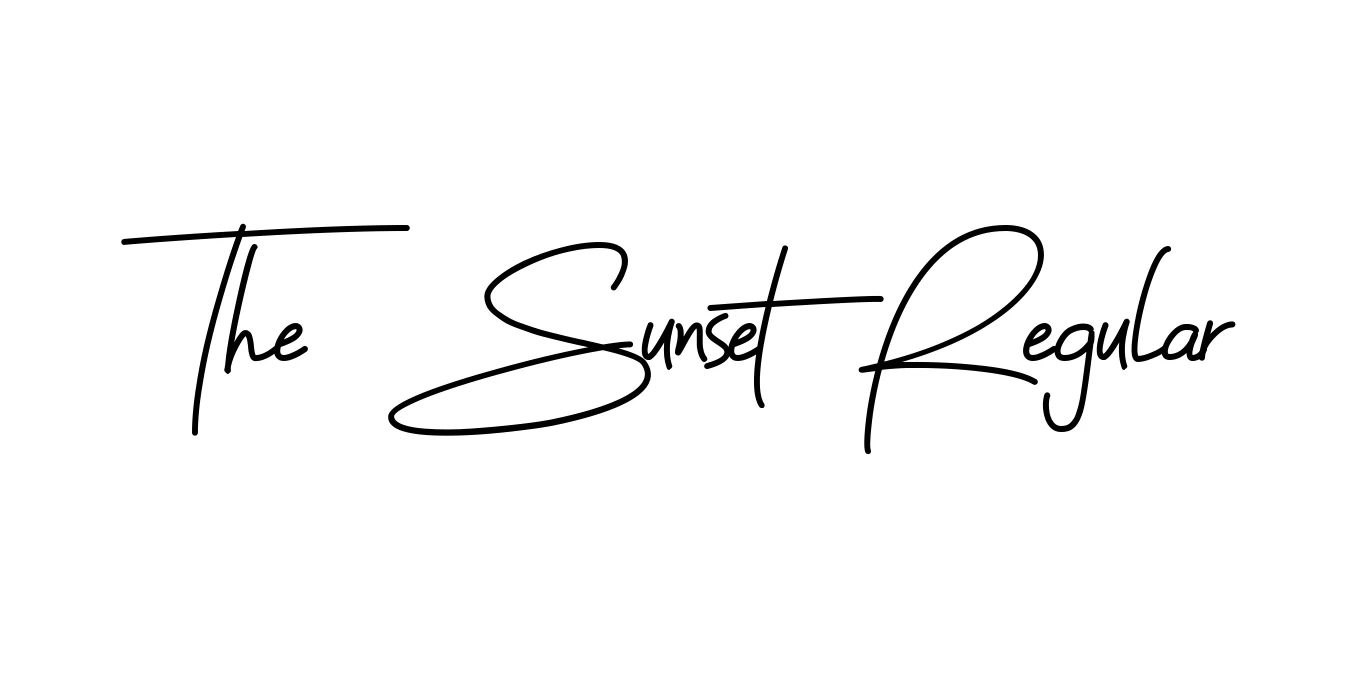
The Sunset Regular
Designed by Haksen Studio
The Sunset Regular is a beautifully crafted handwritten script font that embodies a sense of elegance and effortless style. Designed by Haksen Studio, this typeface features smooth, flowing strokes and natural connections that replicate the look of genuine hand-drawn lettering. Its sophisticated yet approachable aesthetic makes it a standout choice for designers looking to add a personal, human touch to their digital and print projects.
The font is highly versatile, offering a balanced weight that maintains readability across various sizes. The Sunset Regular is particularly well-suited for high-end branding, lifestyle photography overlays, and modern editorial layouts. Its organic curves and stylish ligatures provide a seamless flow, ensuring that every word feels custom-made and unique, whether it is used for a simple logo or a complex invitation design.
The Sunset Regular Best Uses
Perfect for invitations, save-the-date cards, and table placements.
Ideal for creating unique, personal-style brand identities and signatures.
Great for aesthetic Instagram quotes, stories, and lifestyle blog graphics.
Excellent for luxury products, cosmetics, and boutique fashion labels.
The Sunset Regular Glyphs